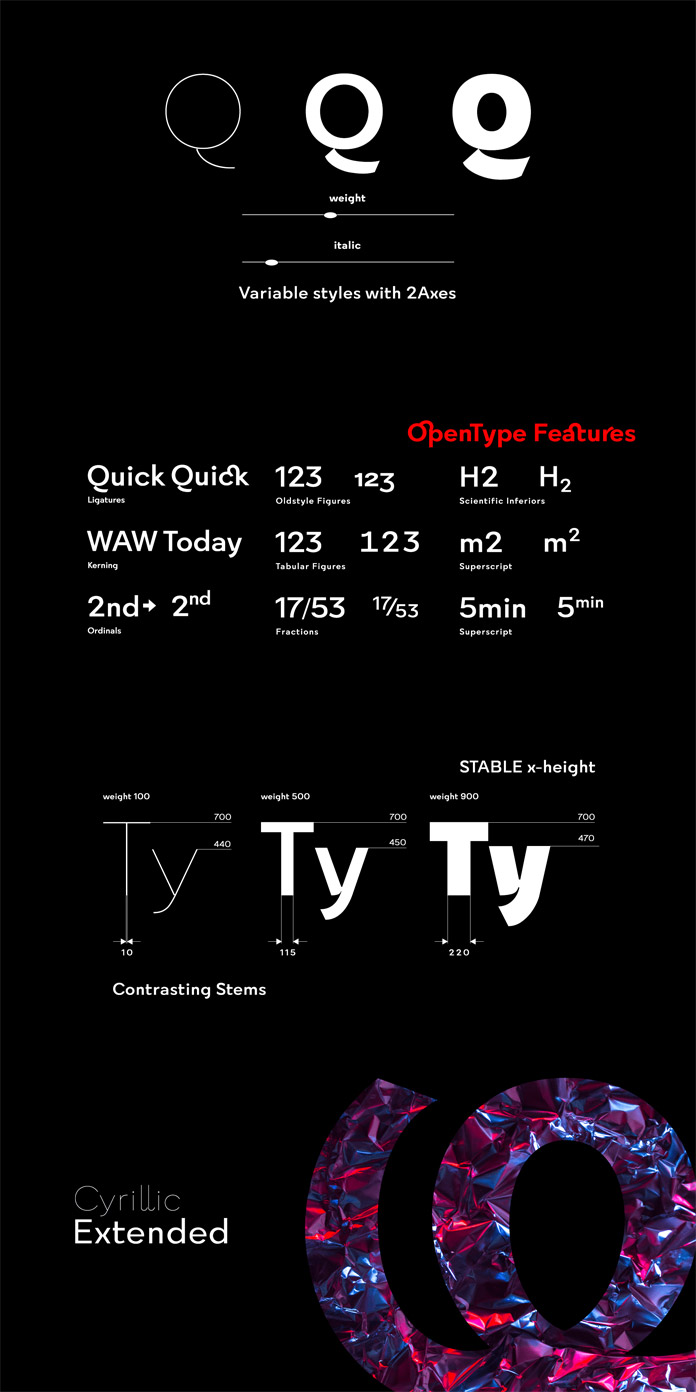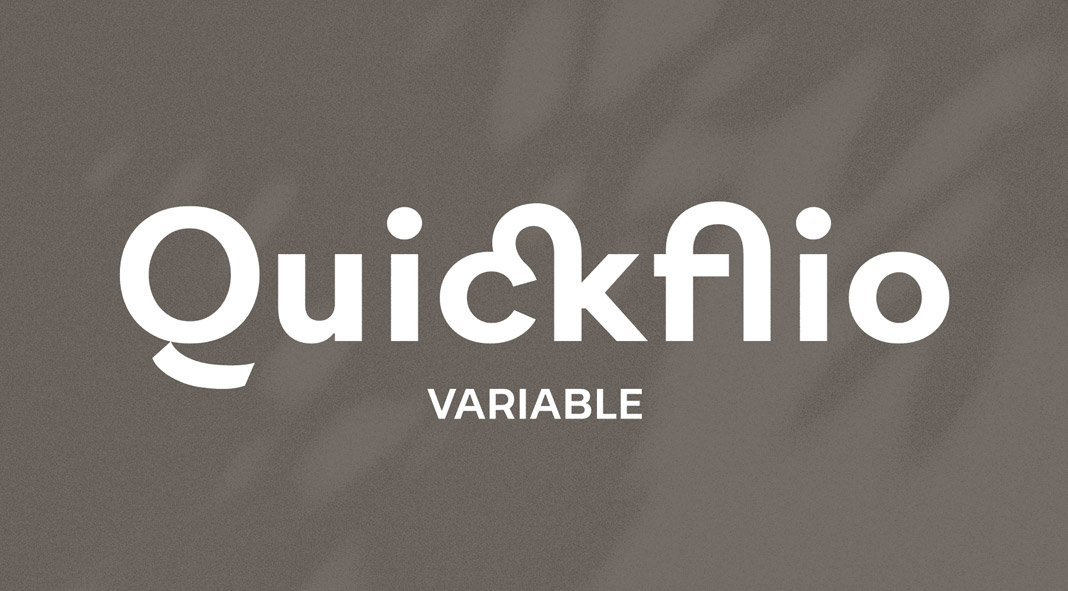
Discover Quickflio, a unique sans-serif font family that comes with 19 styles including a variable font with two axes.
Designed and published by Brenners Template, the Quickflio font family provides eye-catching originality. It’s perfect for designers because it contains a variable font with two axes. You’ll have lots of fun exploring the various styles, which include stem widths from 10pt to 220pt. Plus, the 44 beautiful ligatures will make your imagination come alive. You can use the Quickflio font family for both decorative headlines as well as body text. Quickflio also supports multiple languages. Just click on the following link to learn more about this unique typeface.
Quickflio font family by Brenners Template